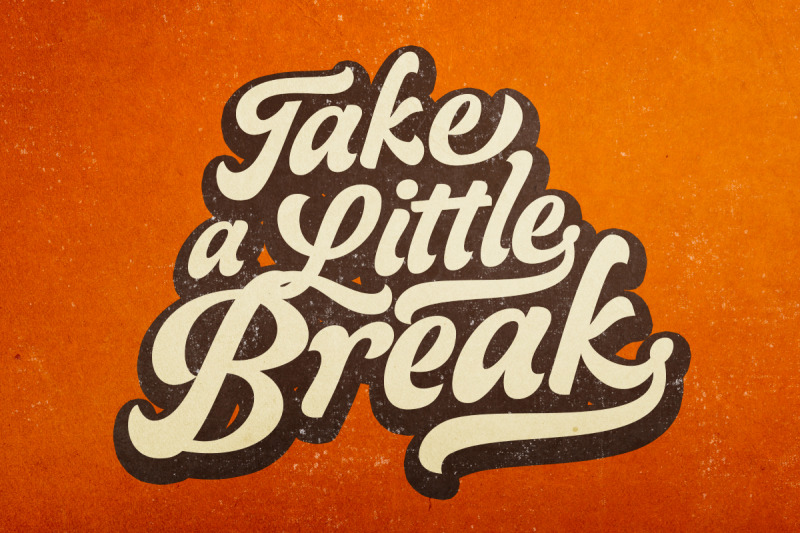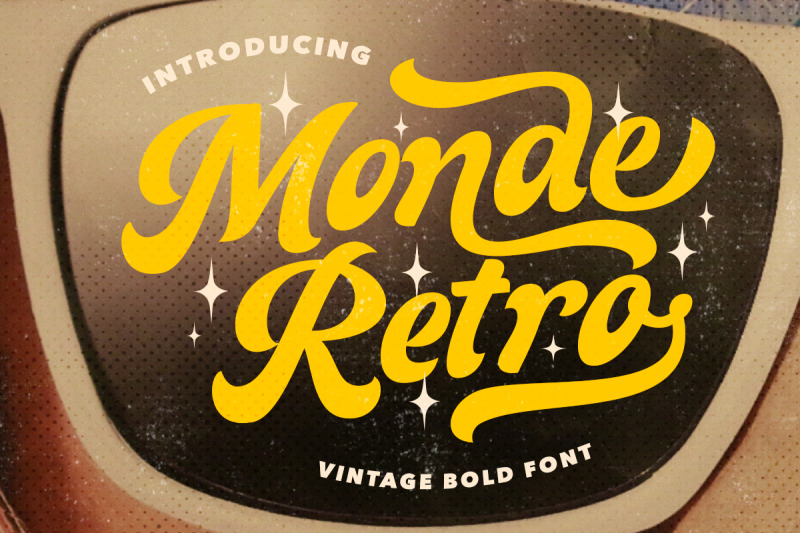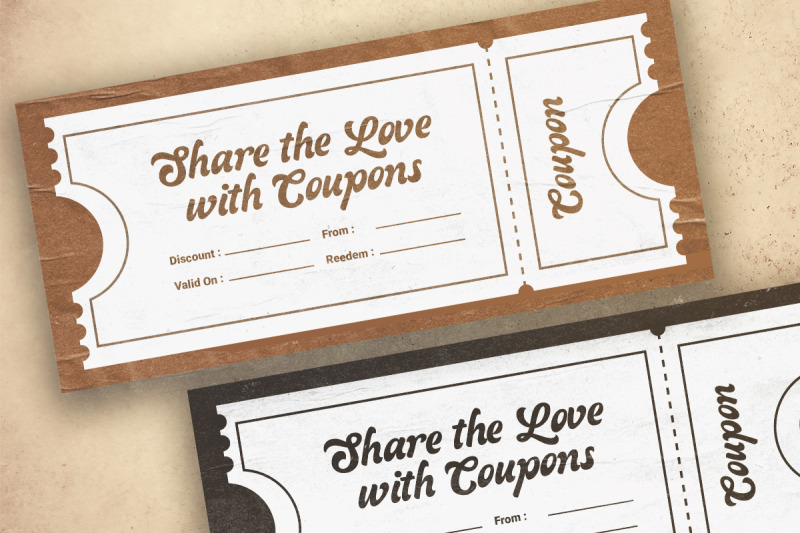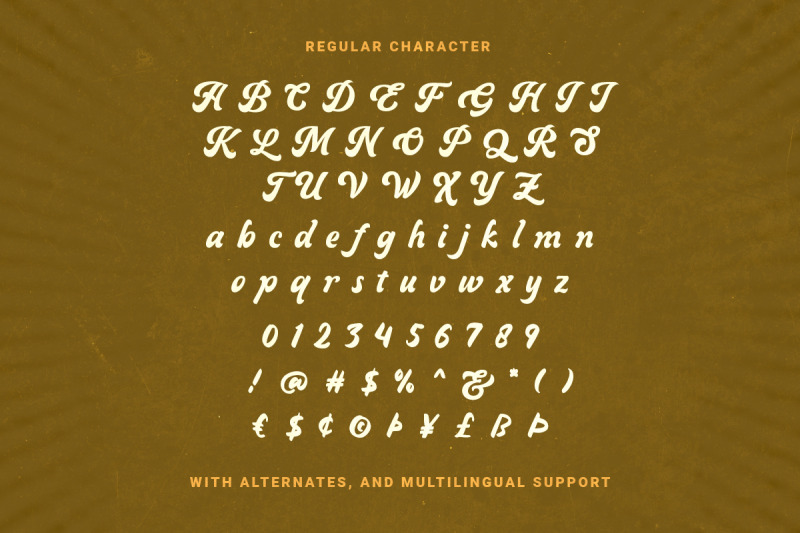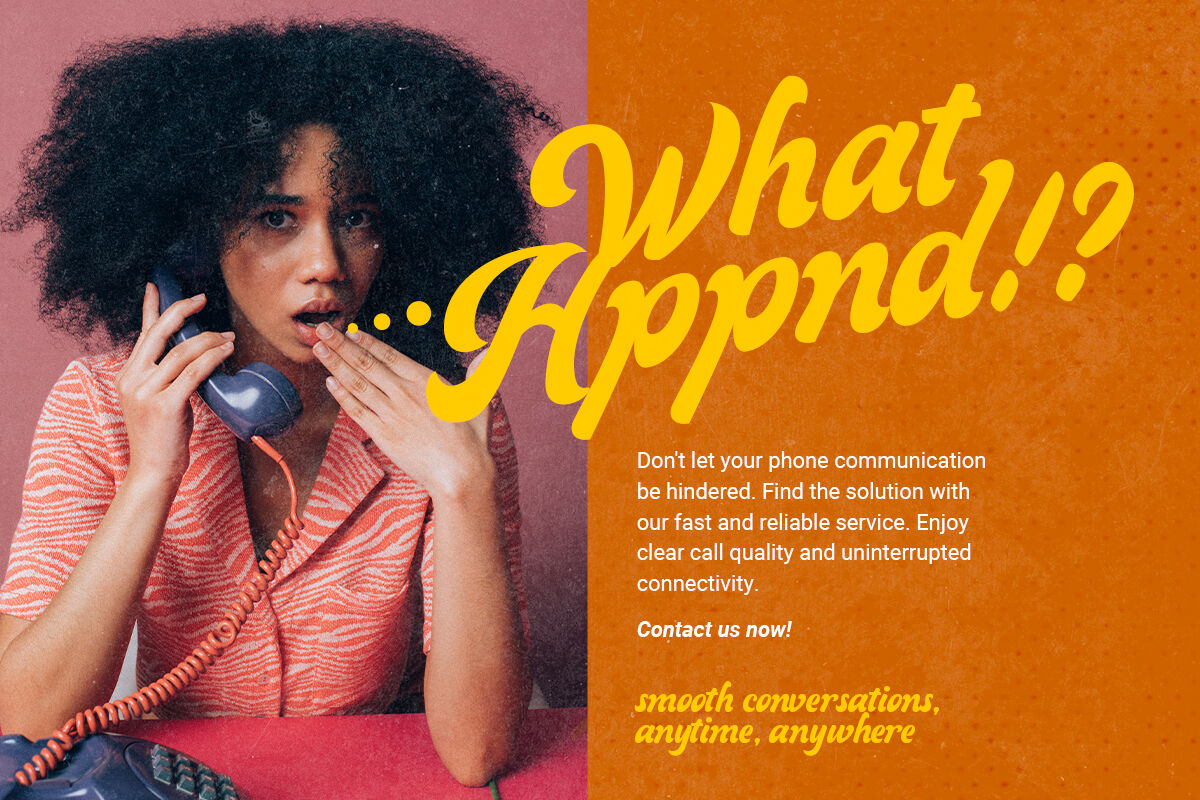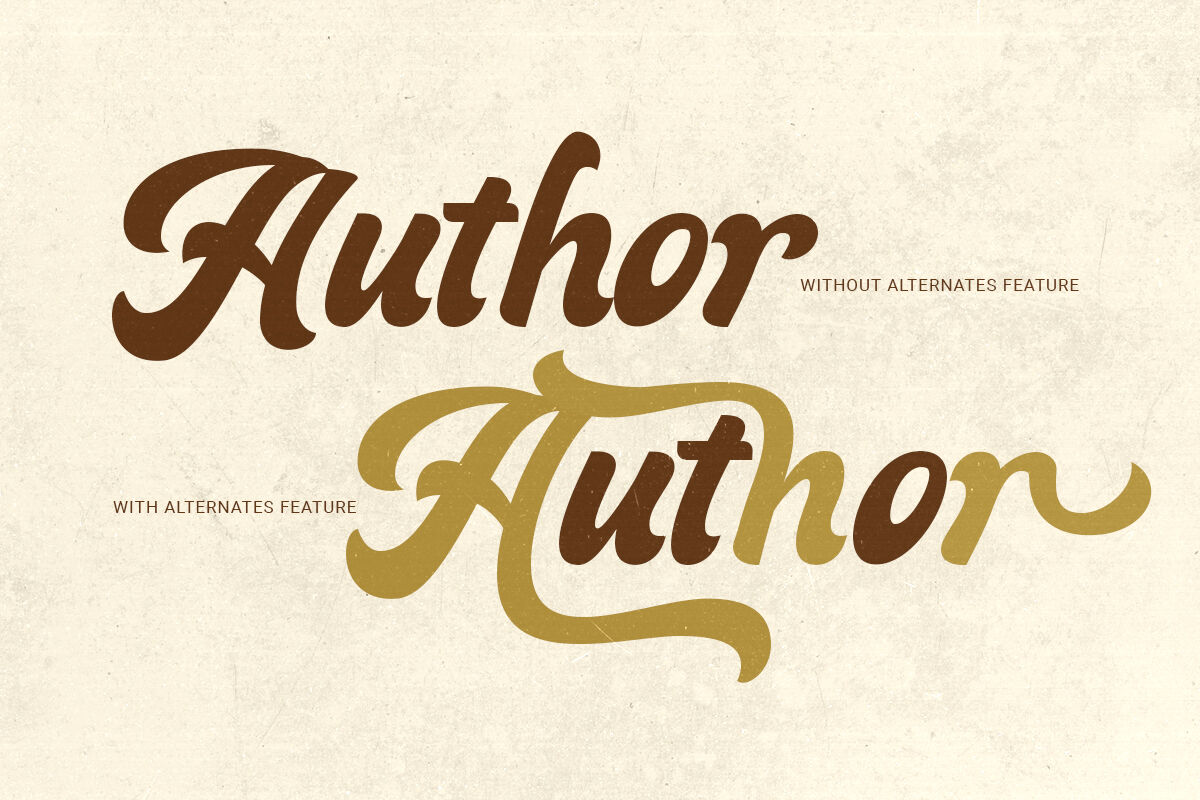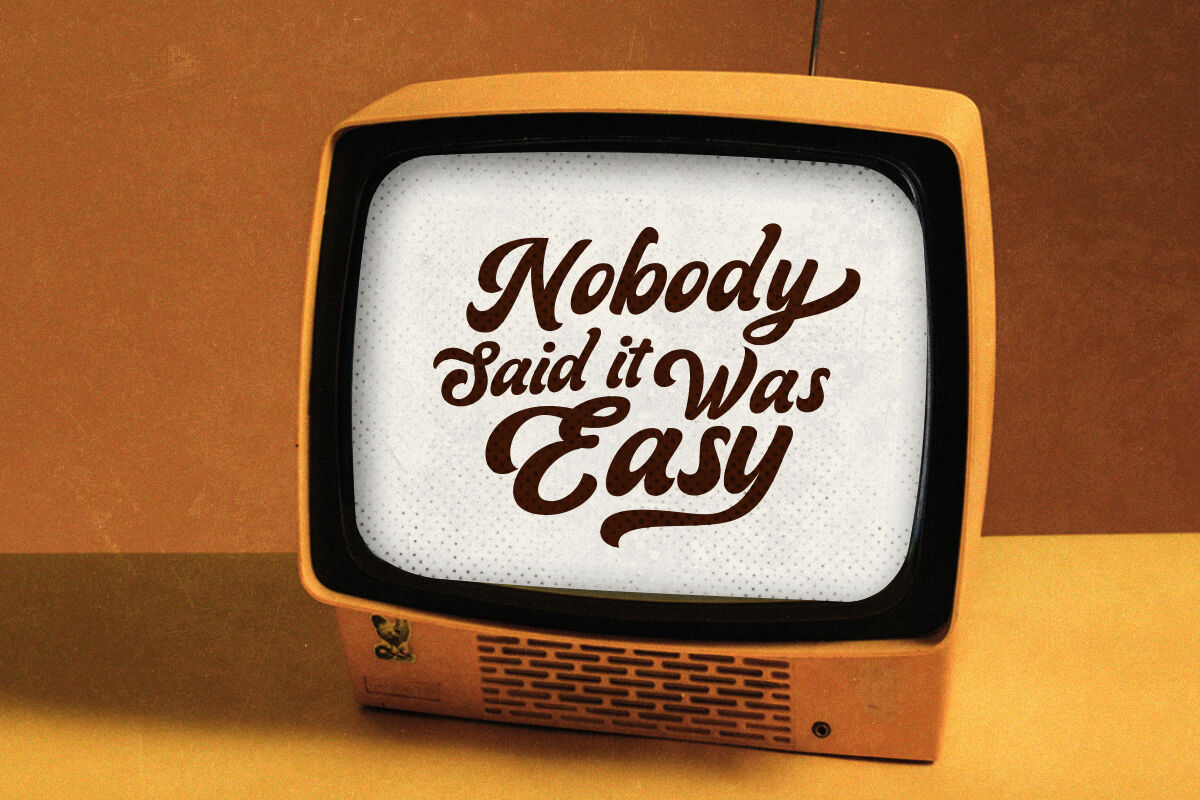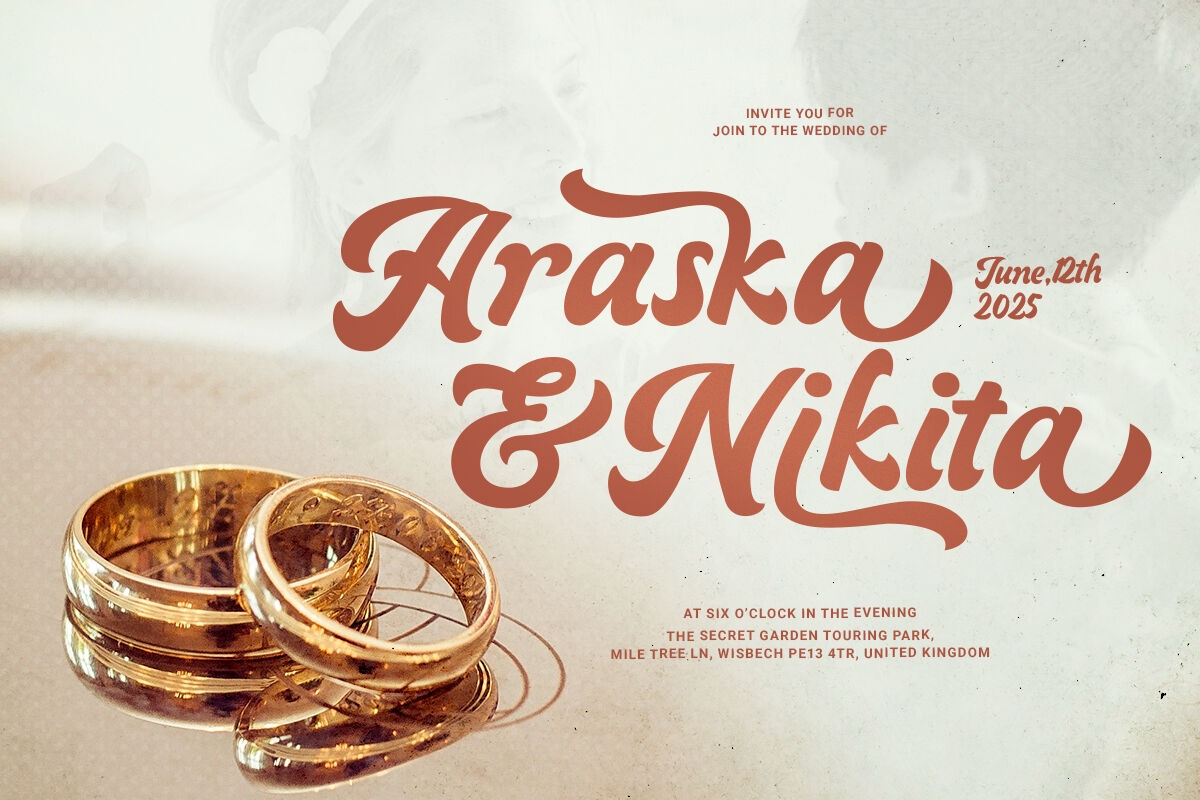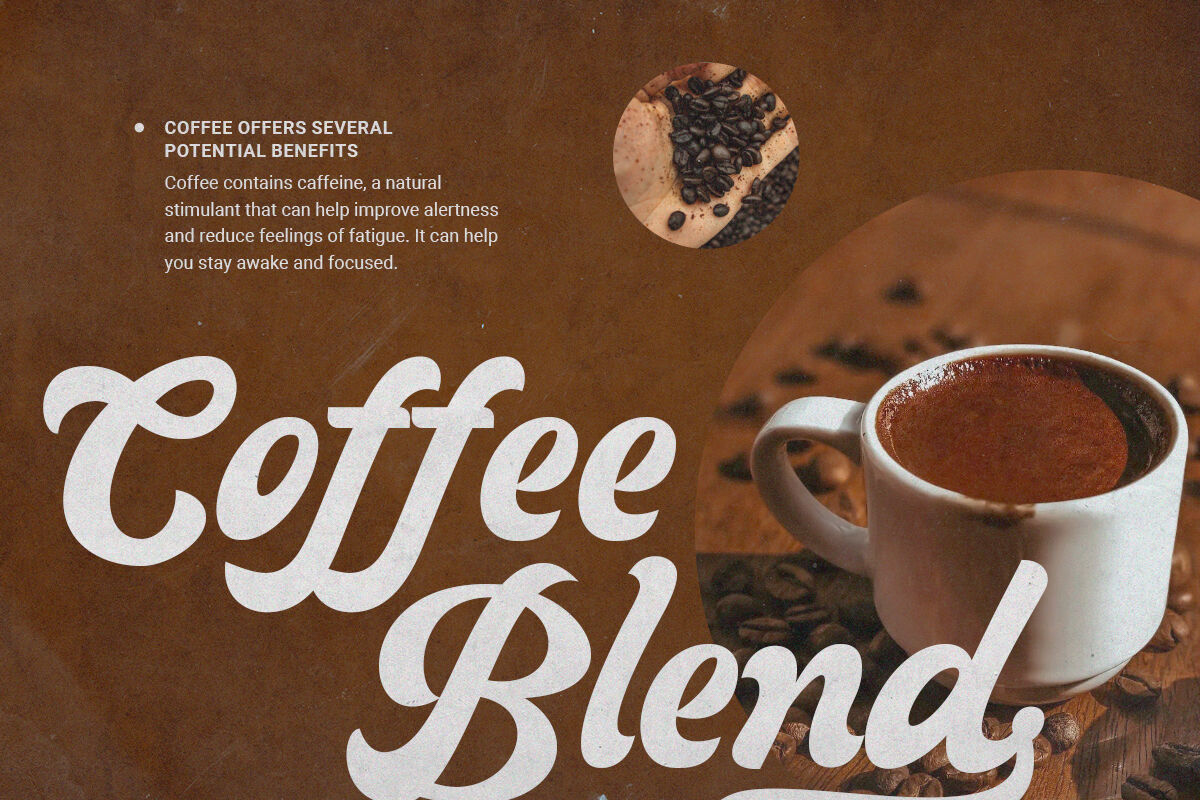
Monde Retro - Vintage Bold Font
Monde Retro is a vintage and hipster bold font. You can use this font for any purposes especially the project that required retro and vintage looks such as poster, book cover, signage, etc. With stylish alternates and swash, you can make your project more stunning and eye-catching. Monde Retro also support multi language.